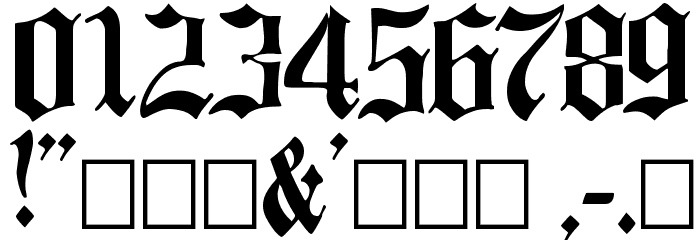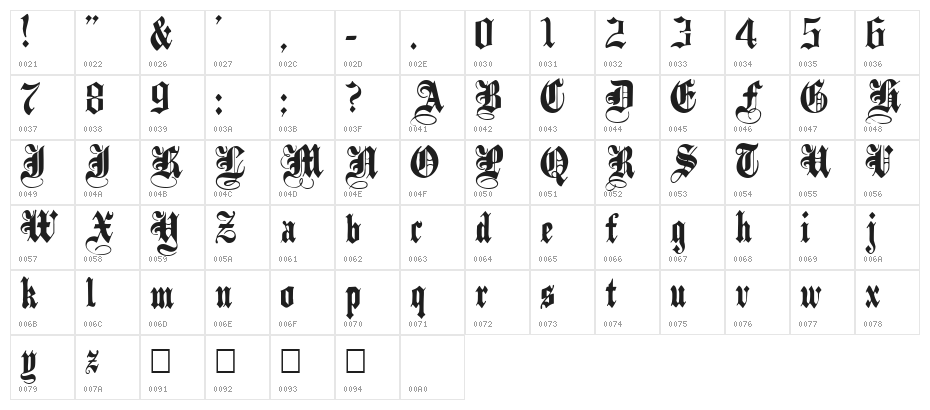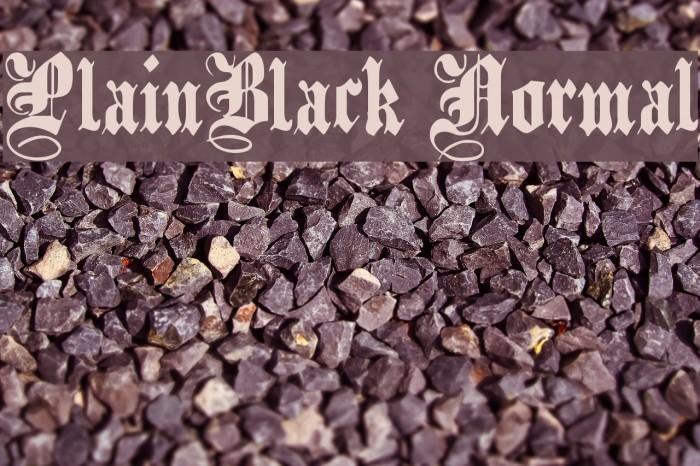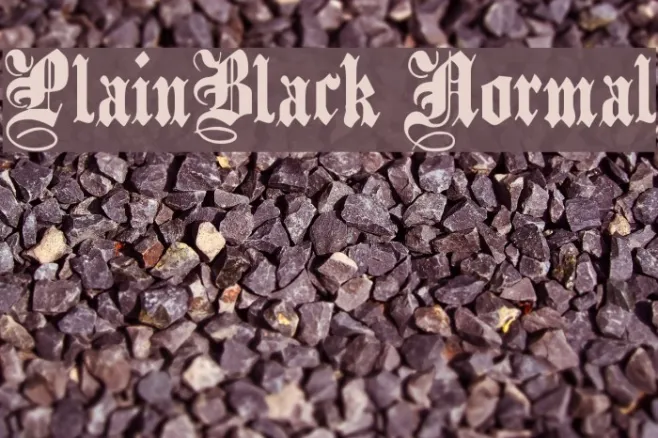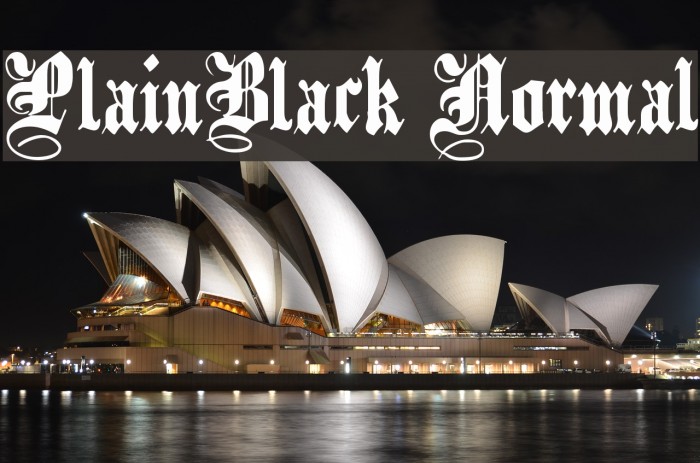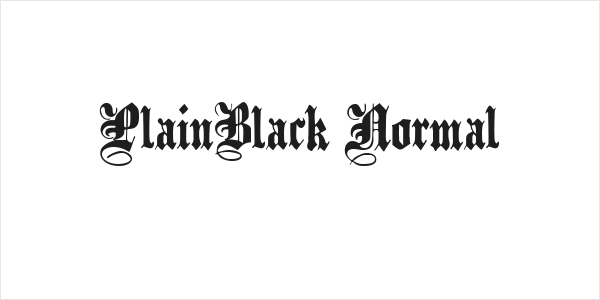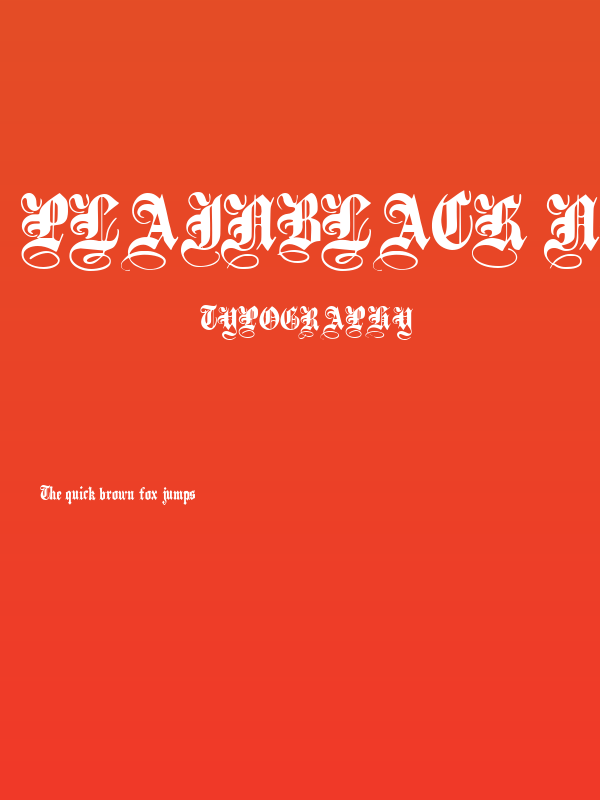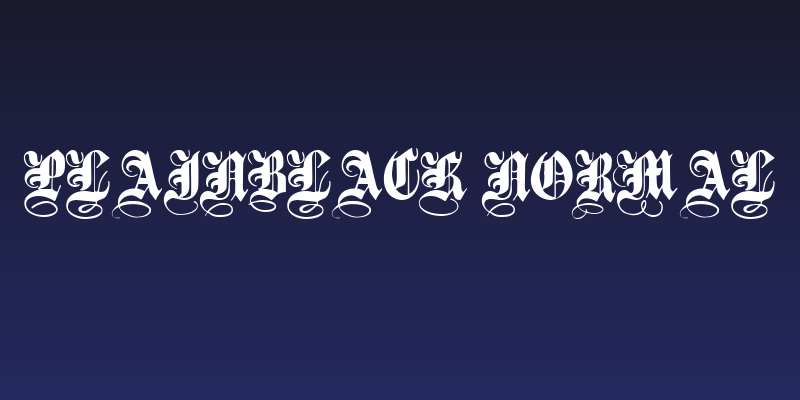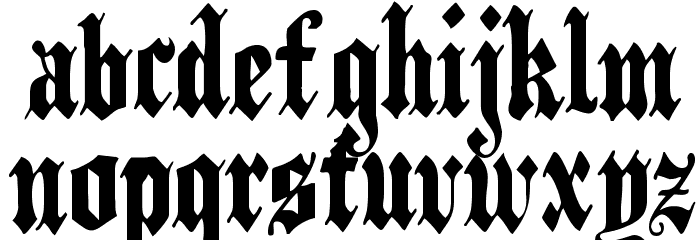
PlainBlack Normal Font
PlainBlack Normal Description
This font features a classic blackletter style, characterized by its ornate and intricate design. The uppercase letters are embellished with flourishes and sharp angles, giving them a dramatic and historical appearance. The lowercase letters maintain the same level of detail, with pointed edges and a strong vertical emphasis. The numerals are consistent with the overall style, featuring bold strokes and decorative elements. Special characters are included, matching the elaborate design of the alphabet. This font evokes a sense of tradition and formality, often associated with medieval manuscripts and historical documents.
| Proposed Projects | Ideal for projects requiring a historical or gothic aesthetic, such as book covers, posters, or branding for vintage-themed products. |